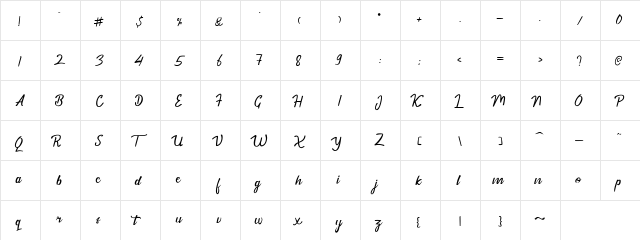
Dekade Regular
Regular · Bang Toyib  ·
Foundry Bang Toyib
Design Context for Dekade Typeface
Dekade is a composed and adaptable typeface that performs quietly and consistently across a wide range of design contexts.